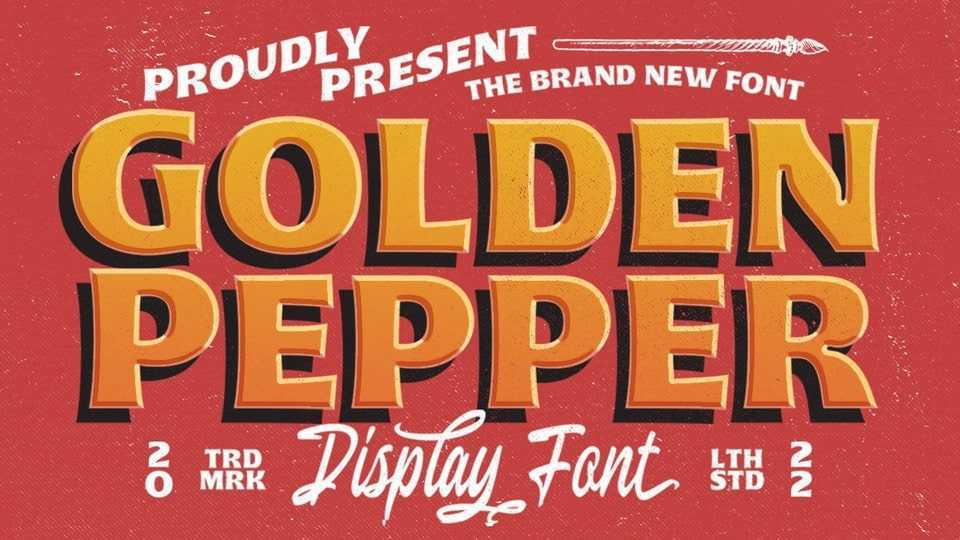
Download Golden Pepper font, a vintage display typeface with the touch of nostalgic feel. The bold looks make Golden Pepper font standout to be used as a title or a logo.